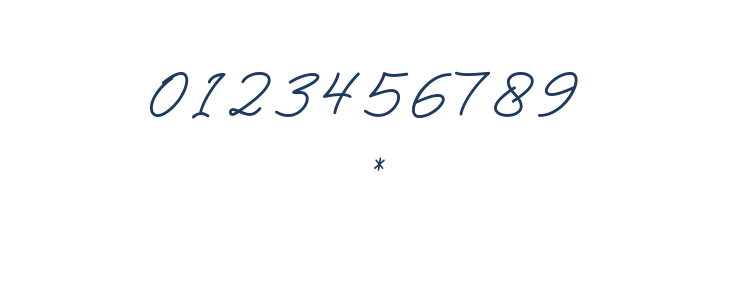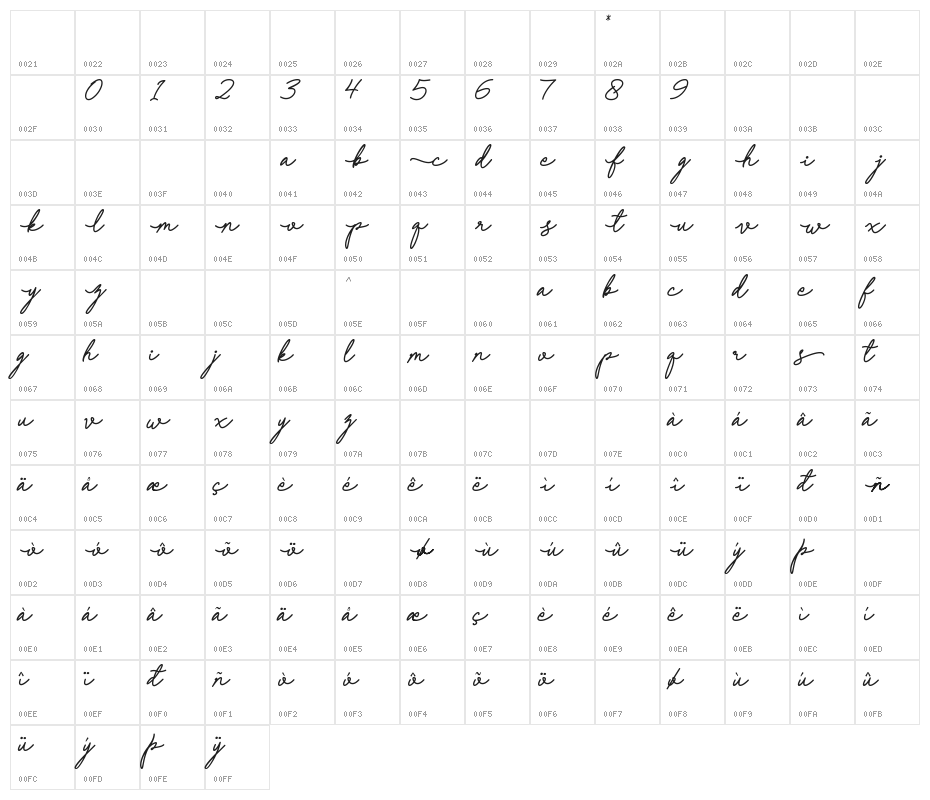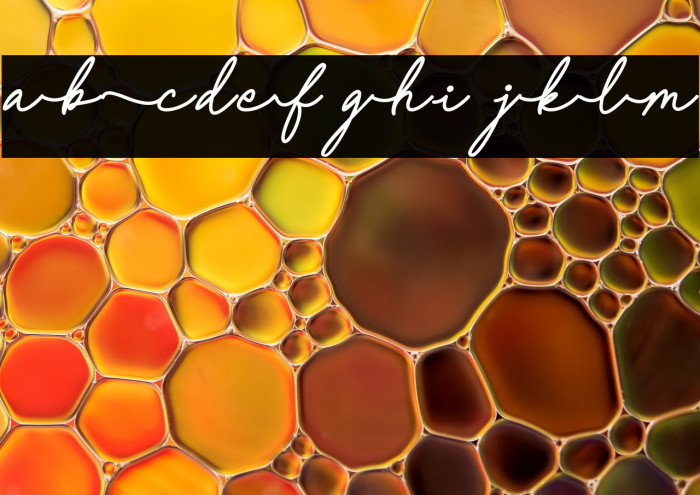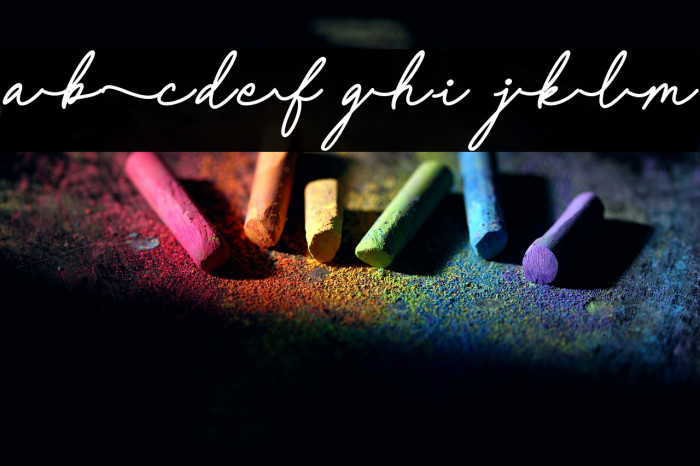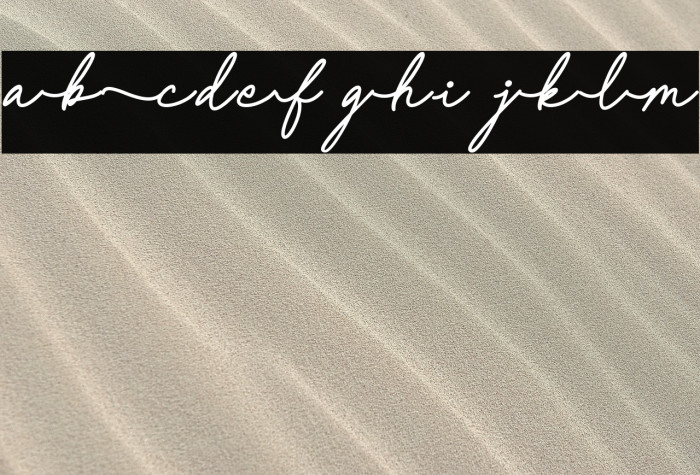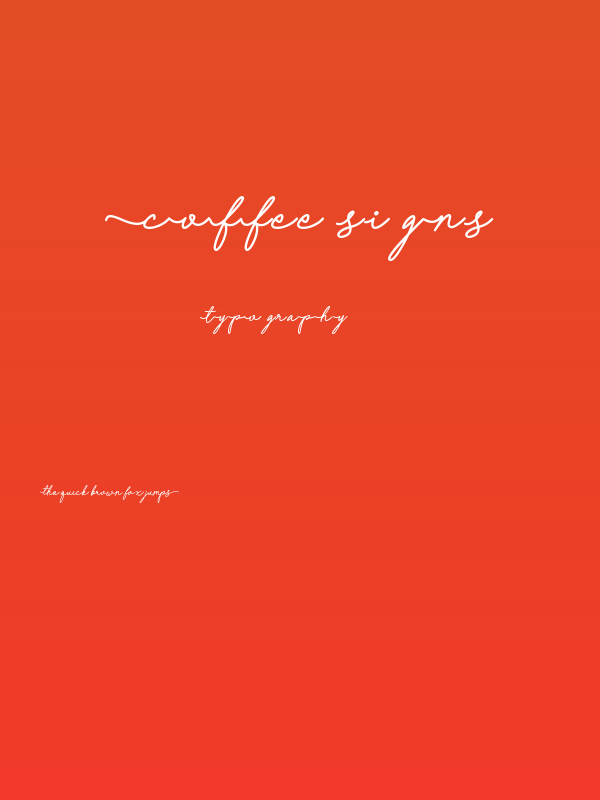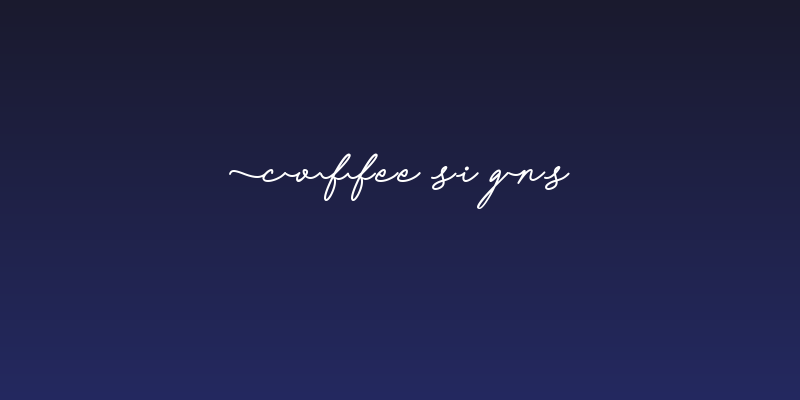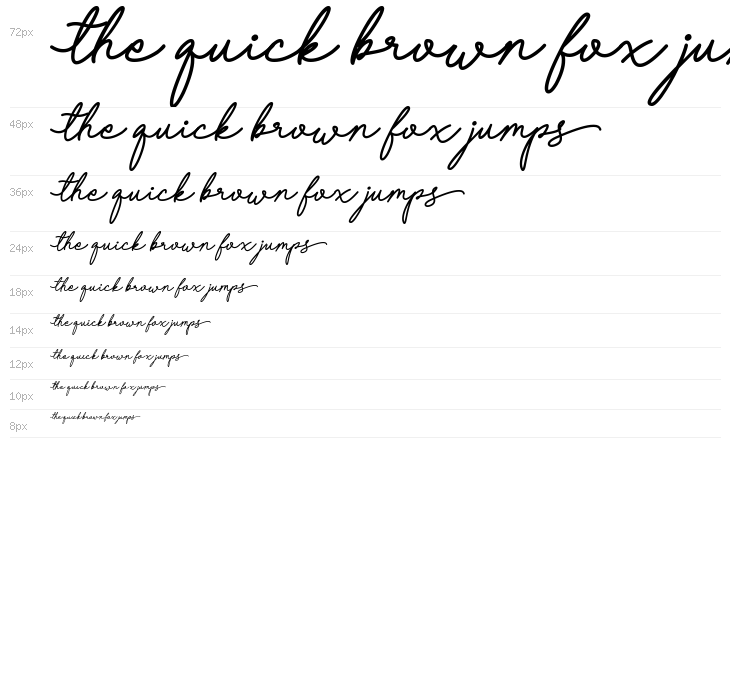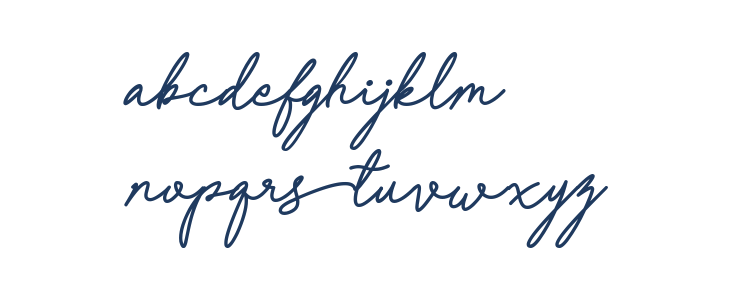
Coffee Signs Font
Coffee Signs Description
This font features a charming and fluid handwritten style, characterized by its elegant cursive letters. The strokes are smooth and continuous, giving it a natural and personal touch. The lowercase letters are particularly flowing, with graceful loops and connections that enhance its script-like appearance. The uppercase letters maintain a similar style, offering a cohesive look across all characters. The numerals are clear and consistent, matching the overall aesthetic. This font's design is both stylish and approachable, making it suitable for a variety of creative applications.
| Proposed Projects | Ideal for wedding invitations, greeting cards, personal branding, and elegant signage. |